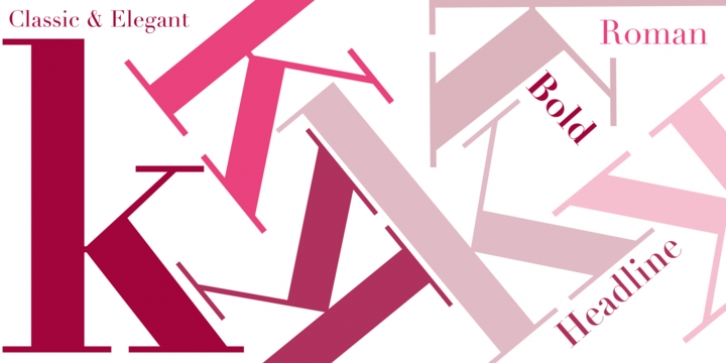
Linotype Didot was designed by Adrian Frutiger and published by Linotype. Linotype Didot contains 10 styles and family package options.
The Didot family were active as designers for about 100 years in the 18th and 19th centuries. They were printers, publishers, typeface designers, inventors and intellectuals. Around 1800 the Didot family owned the most important print shop and font foundry in France. Pierre Didot, the printer, published a document with the typefaces of his brother, Firmin Didot, the typeface designer. The strong clear forms of this alphabet display objective, rational characteristics and are representative of the time and philosophy of the Enlightenment. Adrian Frutiger's Didot is a sensitive interpretation of the French Modern Face Didot. Another model for this design is the Henriade, an historical printing of the original Didot from 1818. The font Didot gives text a classic and elegant feel.